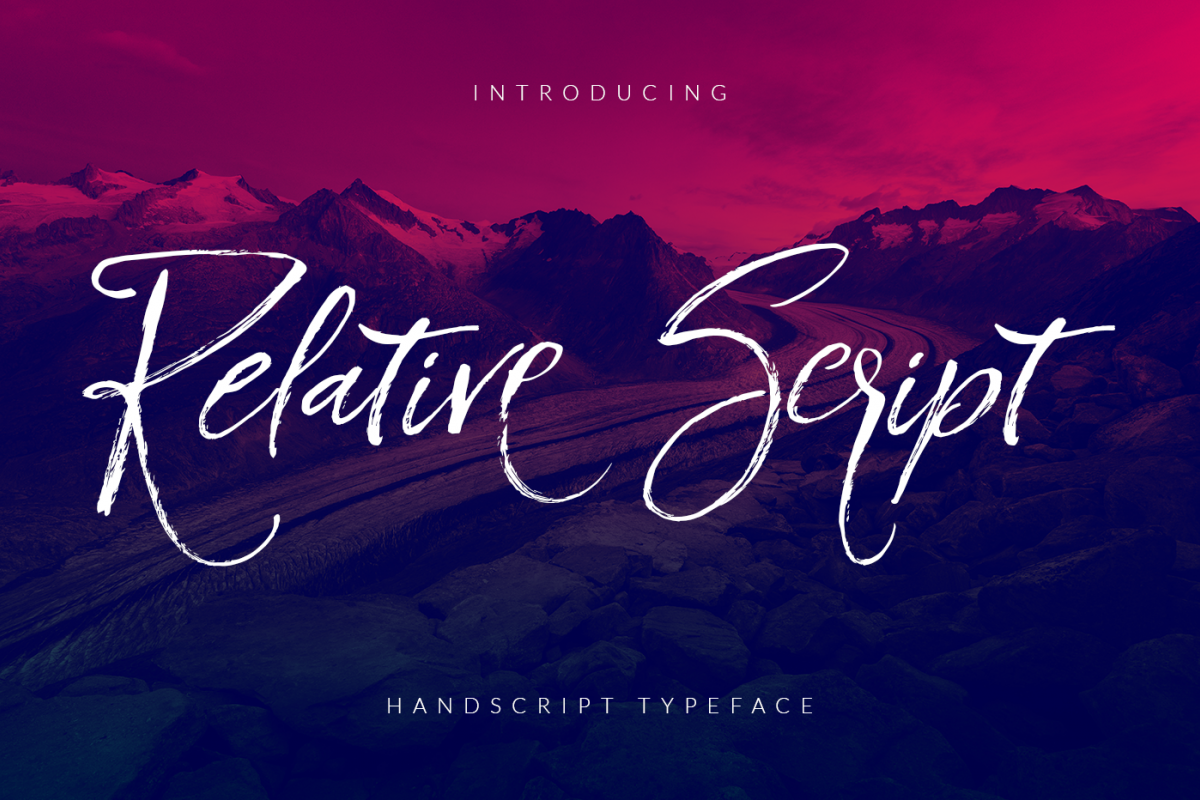
Relative Script
INTRODUCTION An esthetical, brush and natural looking font with artistic capital letters. Its name is Relative Script. It has special characteristics.
GREAT FOR
• Logos
• Business cards
• Product introduction
• Book covers
• Headlines of Blog pages
• Numbers and Symbols
• Alternate Characters
• Swashes